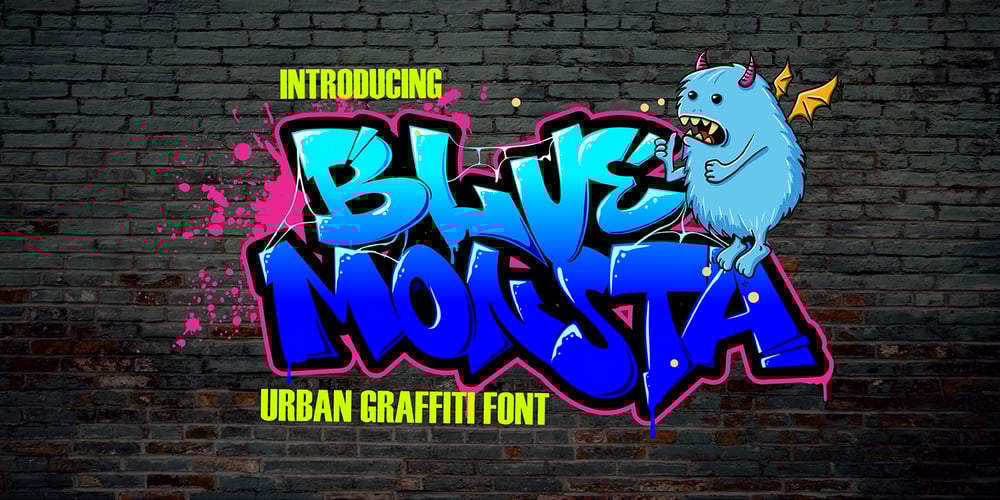
Blue Monsta Graffiti Font Family was designed by Sipanji and published by Sipanji21. Blue Monsta Graffiti contains 1 styles and family package options. Blue Monsta is a spectacular decorative font with a graffiti style and included some swash for your design look awesome. It will elevate a wide range of design projects to the highest level, be it branding, headings, wedding designs, invitations, signatures, logotype, wall art illustration, apparel, labels, and much more!